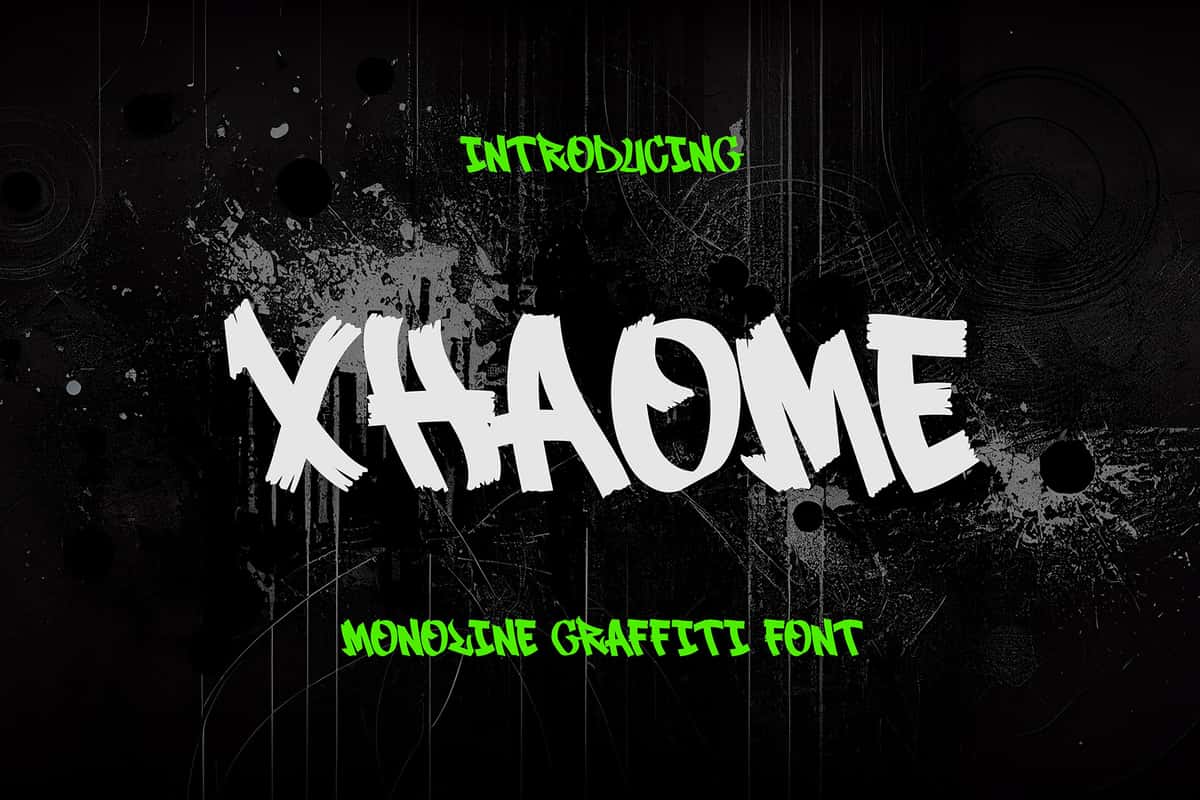
Xhaome
Elevate your designs to urban artistry with Xhaome – the expressive graffiti font that transcends boundaries and ignites creativity. Dive into a world where every stroke tells a story, every letter pulses with energy, and every design becomes a canvas for urban expression.